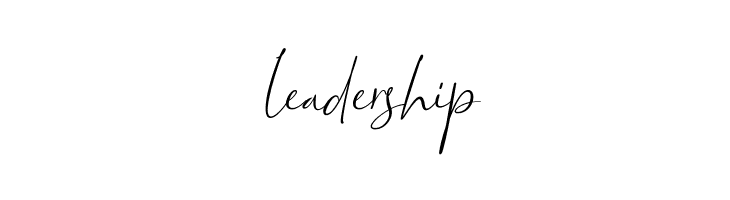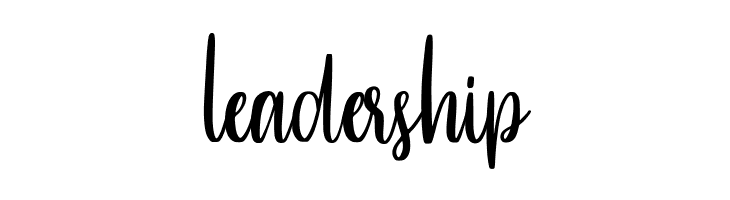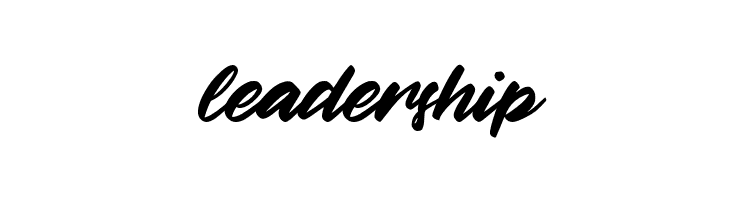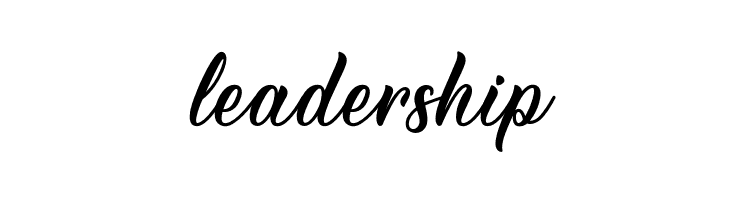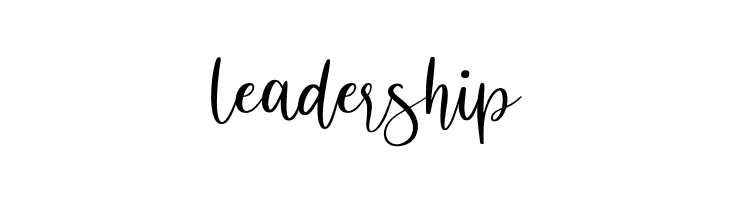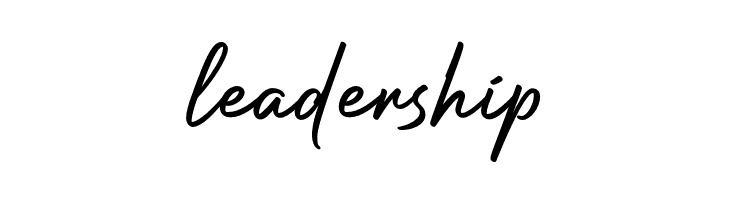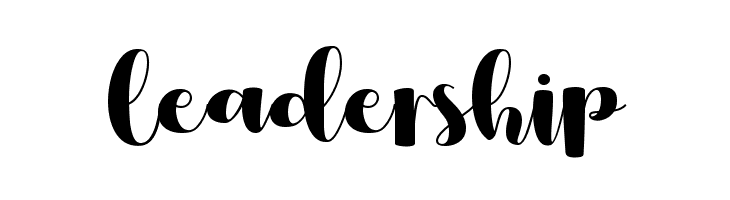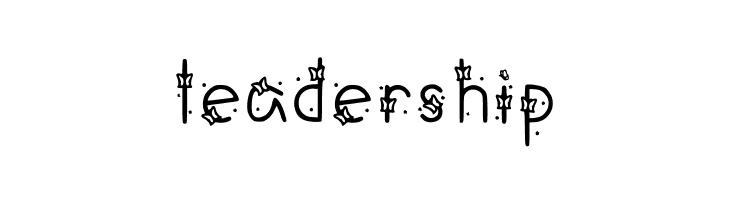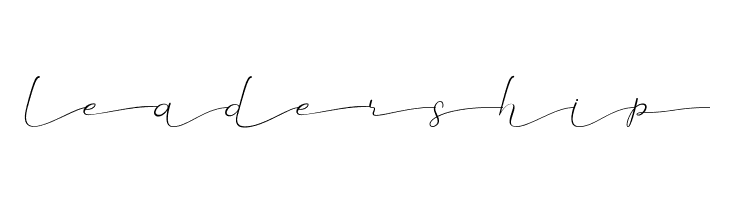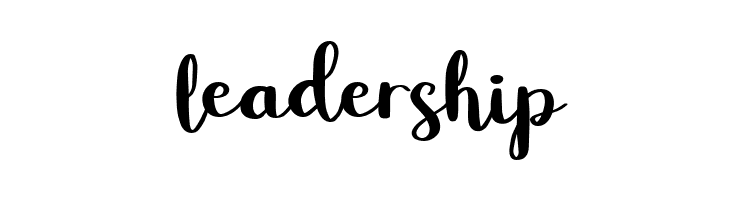
( Fonts by Aisyah - Nur Aisyah Amalia - Personal-use only. For commercial use please contact owner. ) A whimsical font with butterfly motifs integrated into each character. Download 23 Downloads@WebFont
( Fonts by Jaime Rangel Castro - Personal-use only. For commercial use please contact owner. ) A playful, whimsical font blending script and sans-serif styles with decorative elements. Download 151 Downloads@WebFont
( Fonts by Jaime Rangel Castro - Personal-use only. For commercial use please contact owner. ) A playful, handwritten-style font perfect for festive themes. Download 90 Downloads@WebFont
( Fonts by Jaime Rangel Castro - Personal-use only. For commercial use please contact owner. ) A playful, whimsical font with script and sans-serif elements, perfect for festive designs. Download 39 Downloads@WebFont
( Fonts by Mario Arturo - marioarturo.com. Personal-use only. For commercial use please contact owner. Contact the owner for a donation. ) An elegant cursive script font with smooth, flowing strokes and a handwritten appearance. Download 1590 Downloads@WebFont
( Fonts by Eddy Goodboy - Personal-use only. For commercial use please contact owner. ) A whimsical and playful font with curly, flowing letterforms and decorative elements. Download 38 Downloads@WebFont
( Fonts by DigitypeStudio - Personal-use only. For commercial use please contact owner. ) A dynamic and elegant script font with fluid strokes and a handwritten charm. Download 663 Downloads@WebFont
( Fonts by Creaditive Design - Aditiyo DP - Personal-use only. For commercial use please contact owner. ) An elegant script font with flowing, cursive style and intricate flourishes. Download 40 Downloads@WebFont
( Fonts by Creaditive Design - Aditiyo DP - Personal-use only. For commercial use please contact owner. ) An elegant, flowing script font with graceful curves and sophisticated style. Download 44 Downloads@WebFont
( Fonts by Good Java Studio - www.creativefabrica.com/designer/goodjavastudio/ref/236564 - Personal-use only. For commercial use please contact owner. ) A playful and energetic script font with bold, flowing letterforms. Download 433 Downloads@WebFont
( Fonts by Creaditive Design - Aditiyo DP - Personal-use only. For commercial use please contact owner. ) A sophisticated, cursive script font with elegant, flowing strokes. Download 49 Downloads@WebFont
( Fonts by Creatype Studio - Rian Rahardi - Personal-use only. For commercial use please contact owner. ) A bold, cursive script font with a textured, handcrafted feel. Download 106 Downloads@WebFont
( Fonts by Letterflow Studio - Personal-use only. For commercial use please contact owner. ) A playful, elegant script font with a handwritten feel and medium contrast. Download 44 Downloads@WebFont
( Fonts by Rantautype - Yudi Pratama Chandra - Personal-use only. For commercial use please contact owner. ) A fluid and elegant script font with a natural handwriting style. Download 60 Downloads@WebFont
( Fonts by Letteralle Studios - Annas Yahya - Personal-use only. For commercial use please contact owner. ) A dynamic, expressive handwritten font with fluid cursive letterforms. Download 107 Downloads@WebFont
( Fonts by Letterafa Studio - Ahmad Afandi - Personal-use only. For commercial use please contact owner. ) A decorative script font with elegant swirls and playful loops. Download 60 Downloads@WebFont
( Fonts by Stefie Justprince - https://shoppy.gg/@stefiejustprince- Personal-use only. For commercial use please contact owner. ) A bold, playful handwritten script with smooth, flowing characters. Download 126 Downloads@WebFont
( Fonts by Ferry Ardana Putra - Personal-use only. For commercial use please contact owner. ) An elegant script font with flowing curves and intricate swashes. Download 33 Downloads@WebFont
( Fonts by Ardana Creative - Personal-use only. For commercial use please contact owner. ) A sophisticated script font with flowing, interconnected letters and decorative swashes. Download 44 Downloads@WebFont
( Fonts by Attype Studio - Fadli Ramadhan Iskandar - Personal-use only. For commercial use please contact owner. ) An elegant, cursive script font with flowing, interconnected letters. Download 31 Downloads@WebFont
( Fonts by www.movefont .com - Personal-use only. For commercial use please contact owner. ) A lively handwritten font with dynamic strokes and playful curves. Download 376 Downloads@WebFont
( Fonts by Perspectype Studio - Personal-use only. For commercial use please contact owner. ) An elegant script font with flowing, cursive style and intricate flourishes. Download 32 Downloads@WebFont
( Fonts by Perspectype Studio - Personal-use only. For commercial use please contact owner. ) A graceful script font with flowing, interconnected characters and elegant flourishes. Download 35 Downloads@WebFont
( Fonts by Endri Sulistyawan - Personal-use only. For commercial use please contact owner. ) A bold, playful script font with high contrast and whimsical flair. Download 131 Downloads@WebFont
( Fonts by Khalidin.INK - Personal-use only. For commercial use please contact owner. ) An elegant script font with fluid, cursive strokes and intricate loops. Download 58 Downloads@WebFont
( Fonts by Typhoon Type - Suthi Srisopha - www.typhoontype.net - Personal-use only. For commercial use please contact owner. ) An elegant script font with ornate swirls and decorative flourishes. Download 253 Downloads@WebFont